The Paris Mysteries
A dramatic cover capturing the essence of Edgar Allan Poe’s pioneering detective tales.
Overview
Commissioned by Pushkin Vertigo, I designed the cover for The Paris Mysteries, a giftable collection of Edgar Allan Poe’s detective stories featuring Chevalier Auguste Dupin, released ahead of Christmas.
Set in mid-19th-century Paris, these stories are regarded as the first detective fiction, laying the groundwork for Arthur Conan Doyle’s Sherlock Holmes.
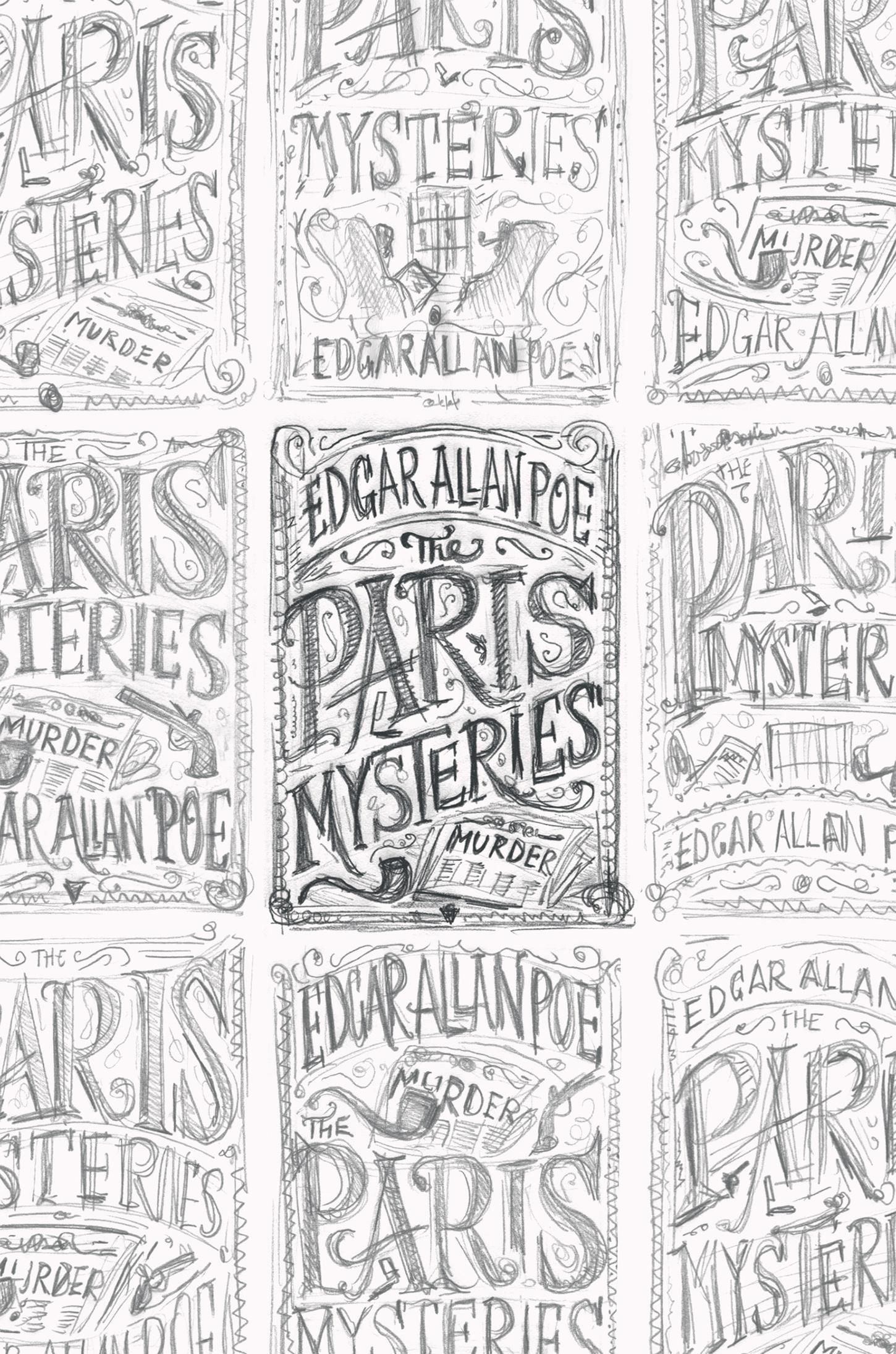
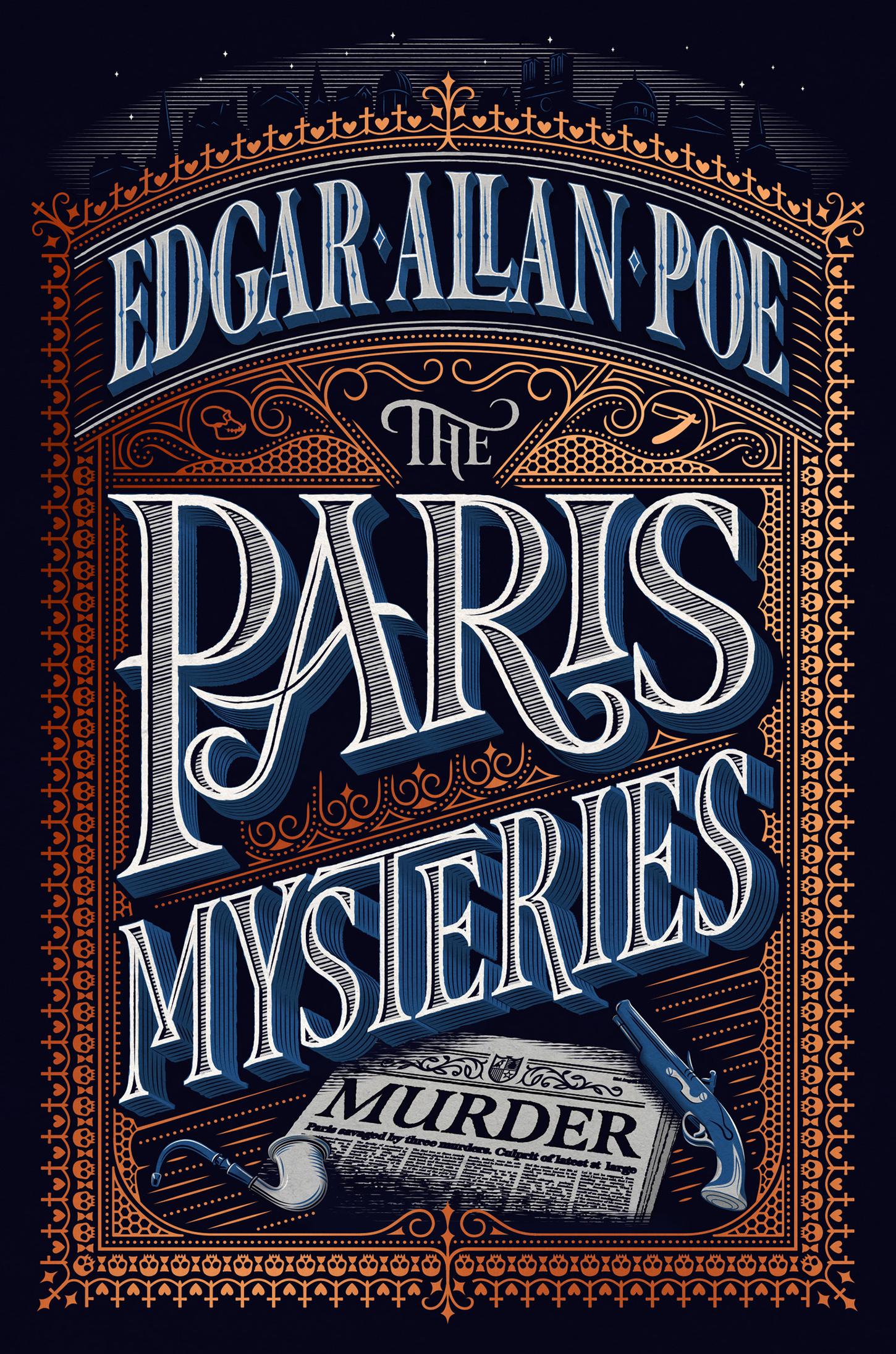
Method
Delving into the stories, I was intrigued by the prominence of the meerschaum pipe, a detail now often associated with Sherlock Holmes. This inspired me to feature the pipe prominently in the design. Additionally, I incorporated a Parisian skyline above the author’s name, referencing period architecture, including Notre-Dame Cathedral, which tragically suffered a fire during the cover’s design process.
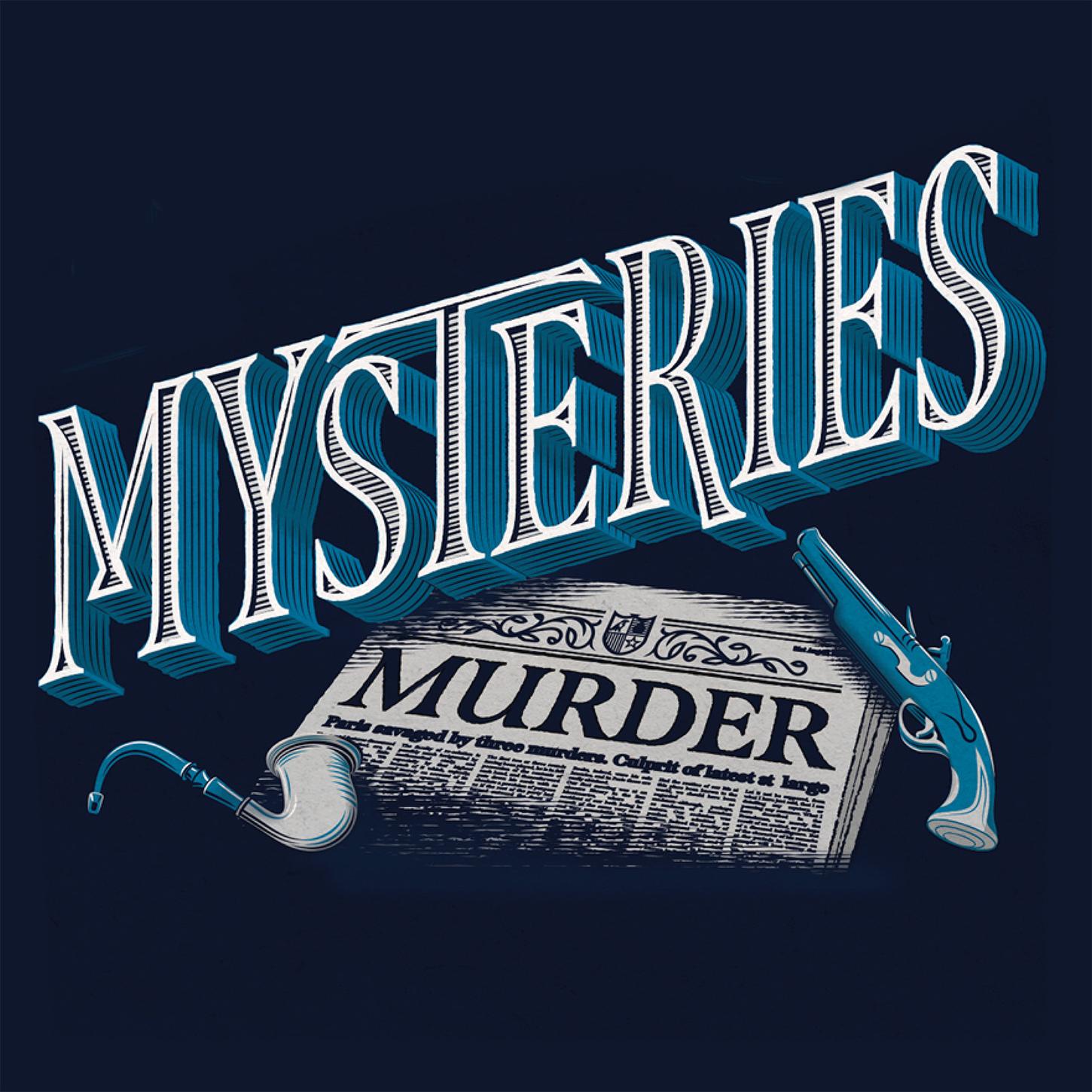
Outcome
The final cover combines illustrative elements and custom lettering to evoke the mysterious and historical ambiance of Poe’s tales.
Subtle visual clues woven into the design reference key moments from the stories.
The combination of intricate detailing and copper-foiled production fulfills the brief, creating a highly desirable festive gift.